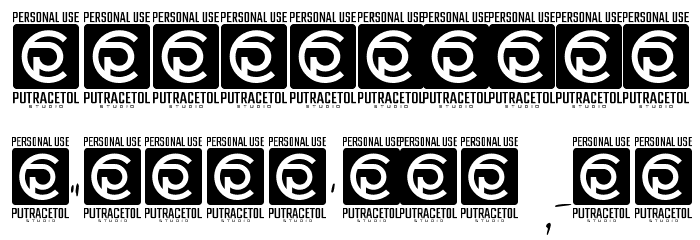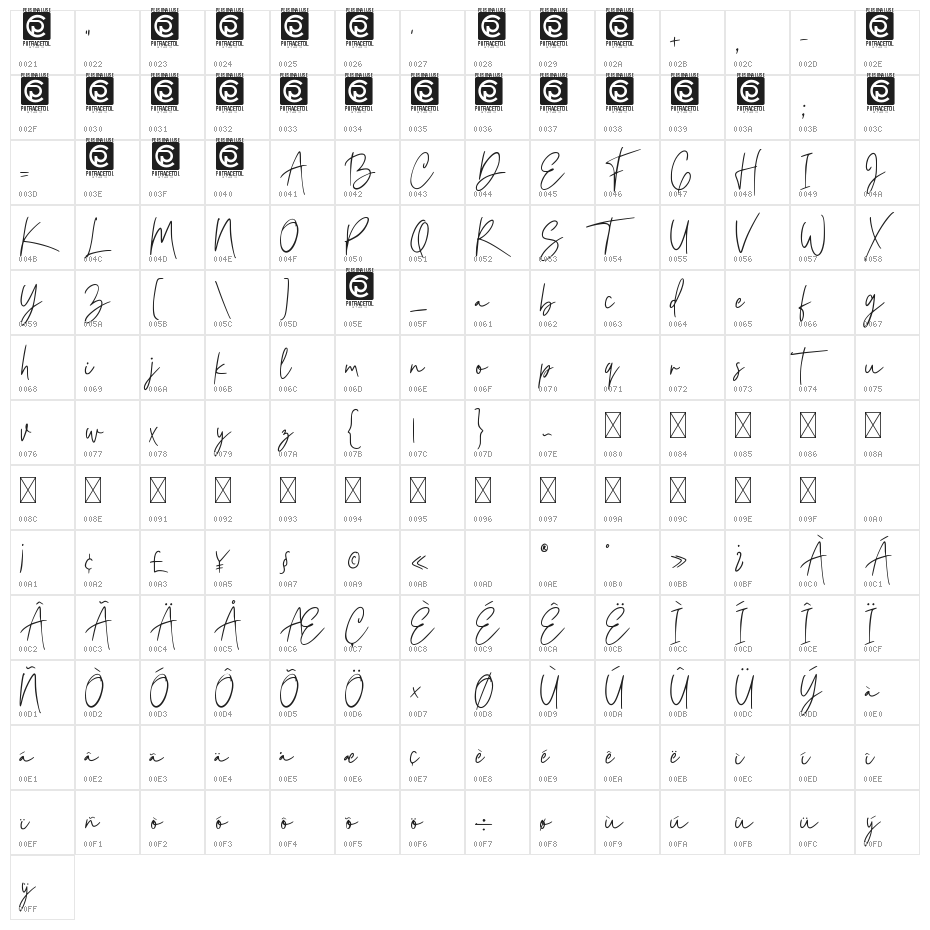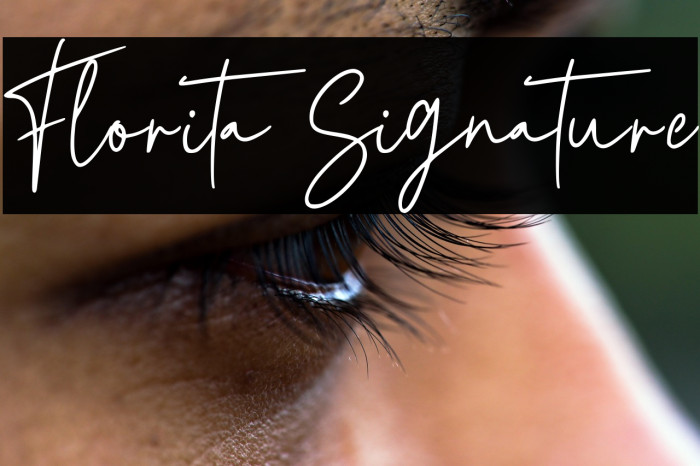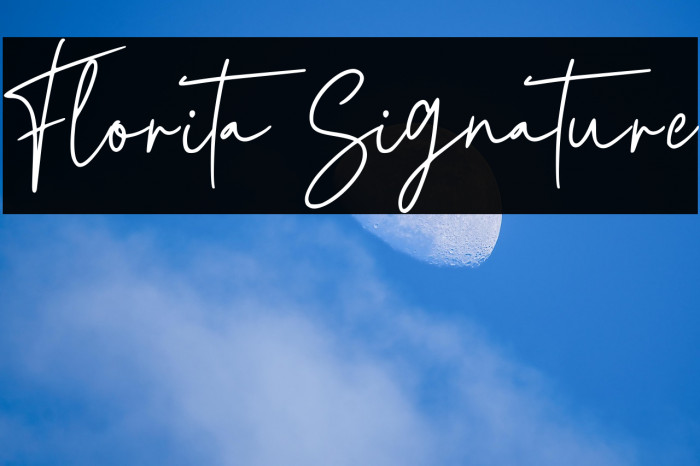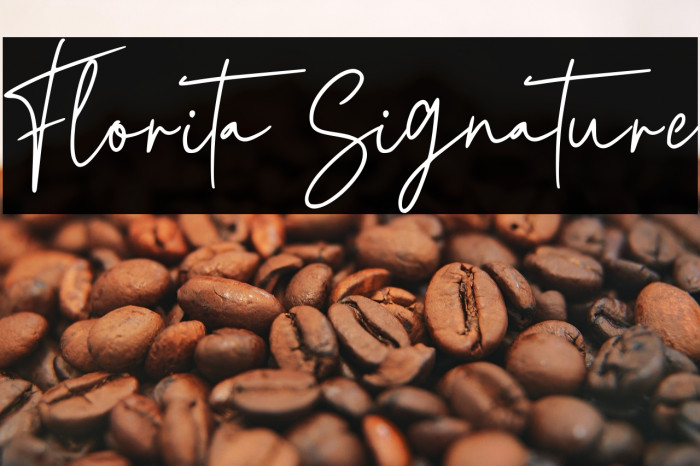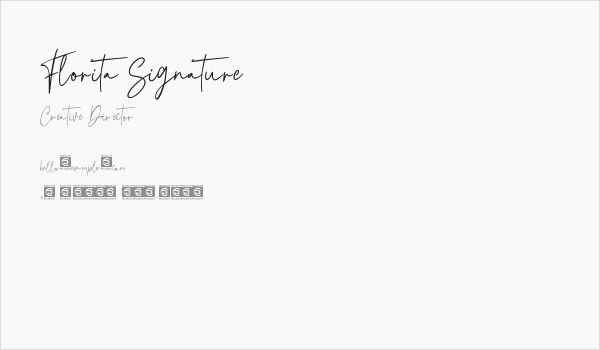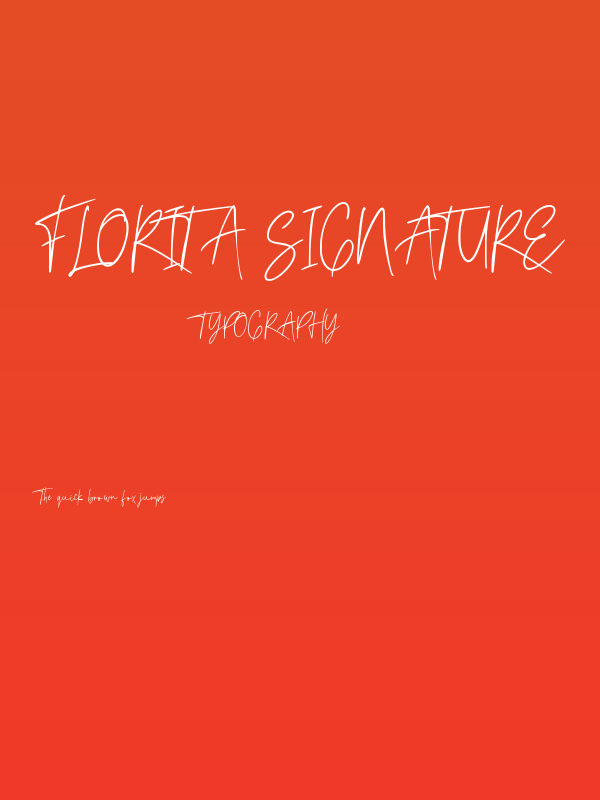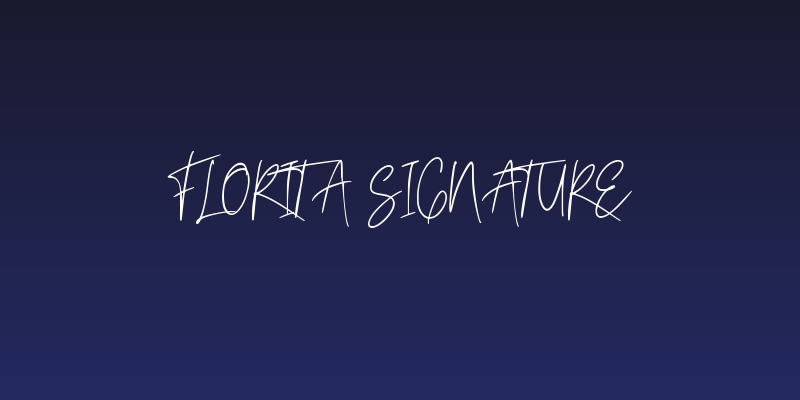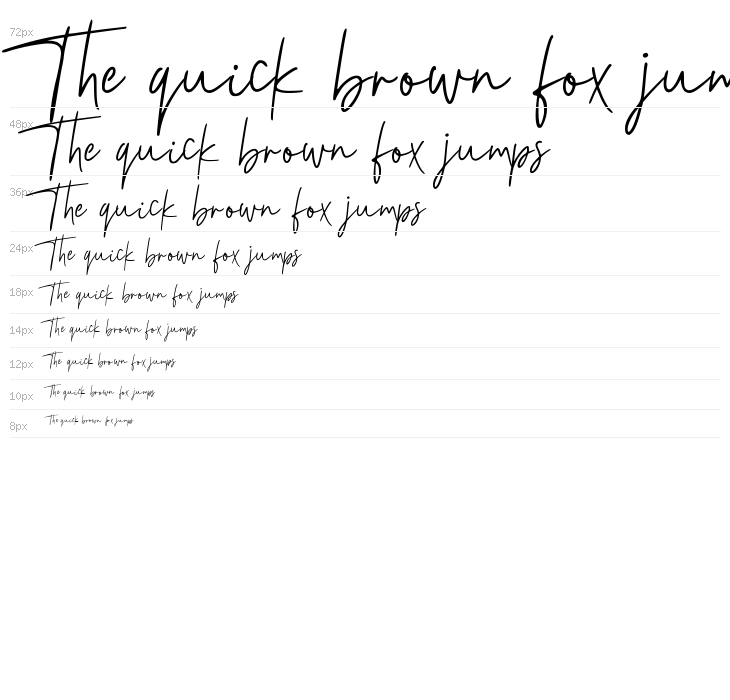
Florita Signature Font
Florita Signature Description
This font features a flowing, handwritten style that exudes elegance and sophistication. The uppercase letters are tall and slender, with a slight slant that adds a dynamic feel. The lowercase letters maintain a consistent flow, with smooth curves and connected strokes that mimic natural handwriting. The overall appearance is both stylish and legible, making it suitable for a variety of design applications. The font's thin lines and graceful loops give it a delicate and refined look, perfect for projects that require a personal touch.
| Overall Style | Elegant |
| Use Case | Logos, Invitations, Personal Branding |
| Proposed Projects | Ideal for wedding invitations, personal branding, greeting cards, and elegant logos. |